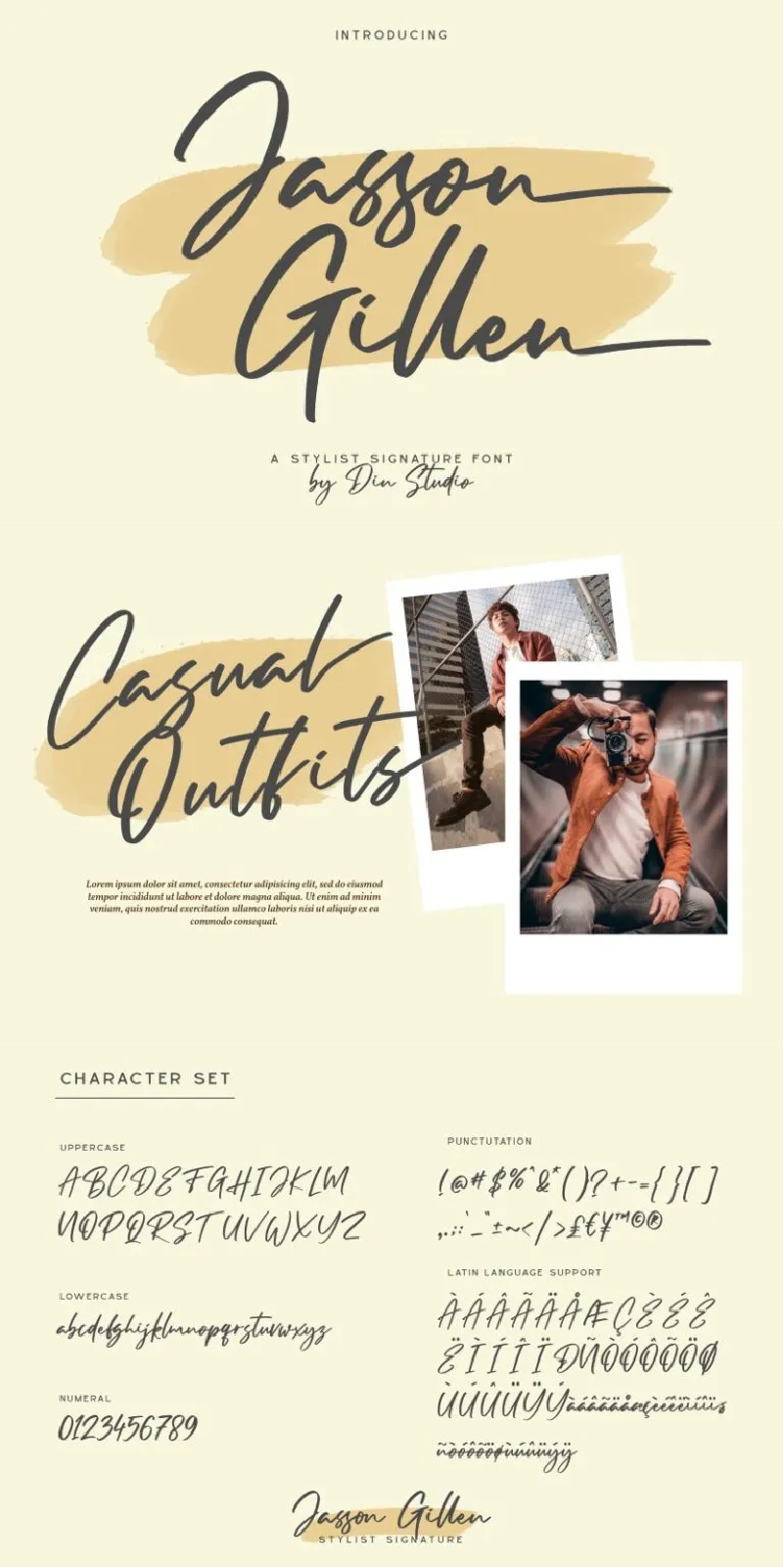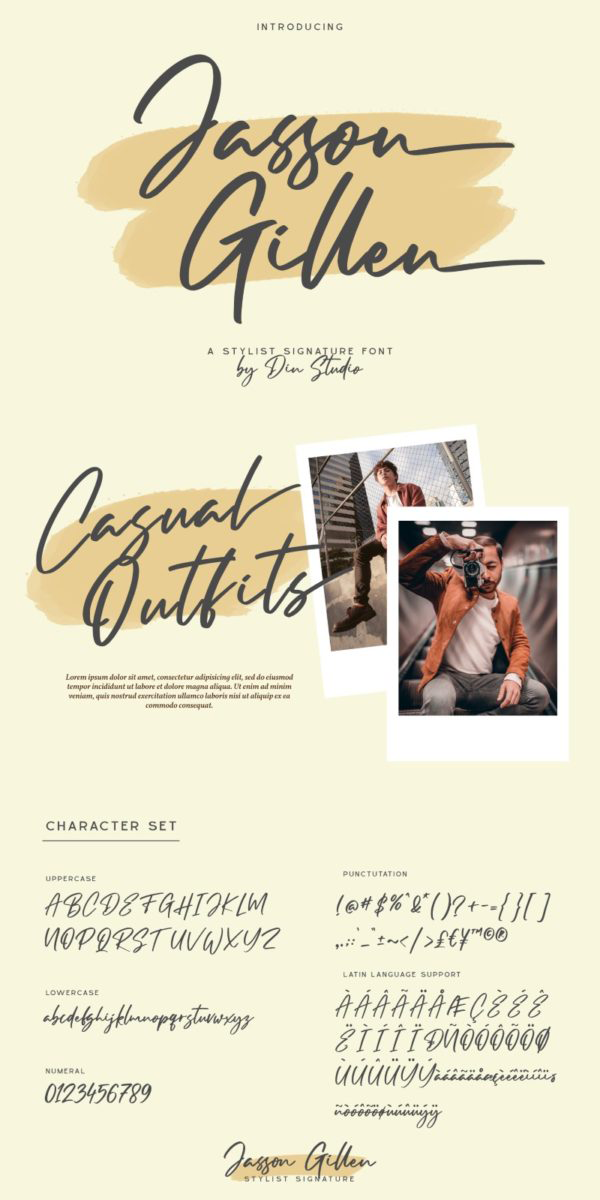
Jasson Gillen Font
About Jasson Gillen
Hello, Guys! We’d like to introduce you to the Jasson Gillen Font, a Stylish Signature font
made with natural handwriting that will make your design projects more beautiful. This font is suitable for any designs, like branding, quotes, invitation, ads, t-shirt printings, etc. Jasson Gillen includes a full set of handwritten uppercase and lowercase letters, numerals, punctuations, and ligatures. See the previews above to get some inspiration on how you can use them. Enjoy the font!
- Accents (Multilingual characters)
- Beautiful ligatures
- Stylish sets